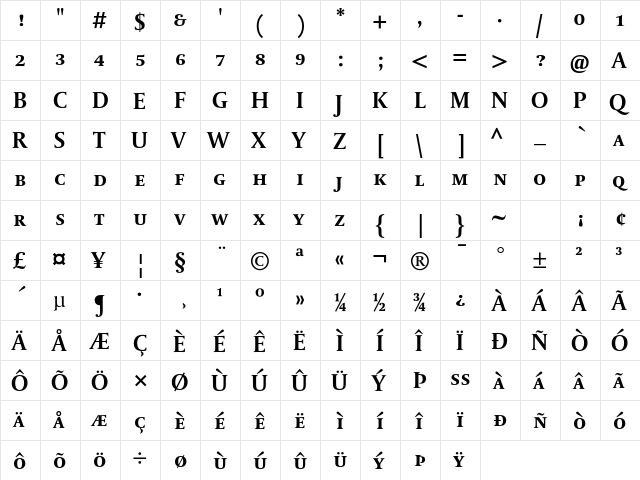
DTL Paradox T Caps Bold
Design Context for DTL Paradox Typeface
DTL Paradox takes a measured approach to typography — its balanced proportions and neutral character make it a reliable workhorse for both digital and print work. Its bold stroke weight gives it real presence on the page.
Pro Tip: Use DTL Paradox in both headline and body roles to test its range before committing to a single application.